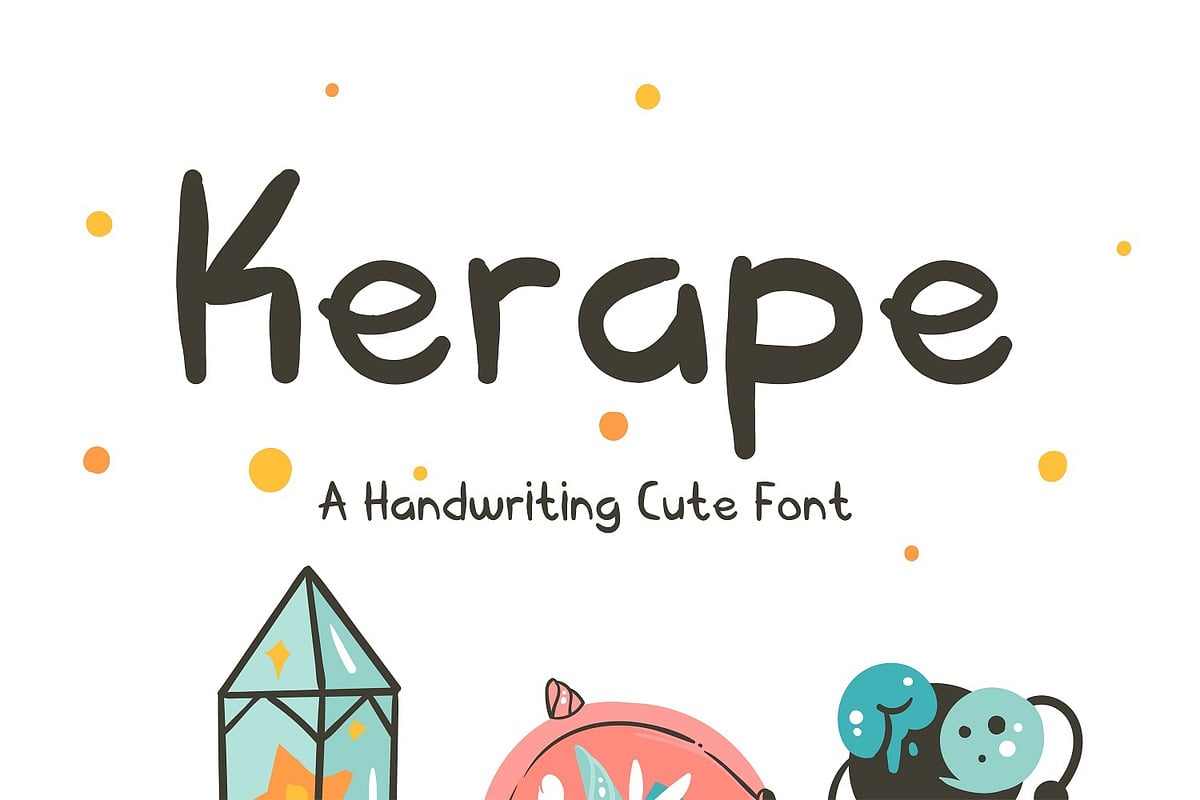
Kerape Handwriting Font
Cute, quirky, and full of personality — Kerape is the handwriting font your next fun project has been waiting for.
Kerape Handwriting Font is a charming and playful typeface with a casual, hand-lettered feel. Inspired by the whimsical world beneath the sea, it brings a lighthearted energy to any design it touches.
It's a perfect fit for a wide range of creative applications, including:
- Logos and branding
- Name cards and business stationery
- Magazine layouts
- Invitations and greeting cards
- Headers and titles
- Large-scale artwork and posters